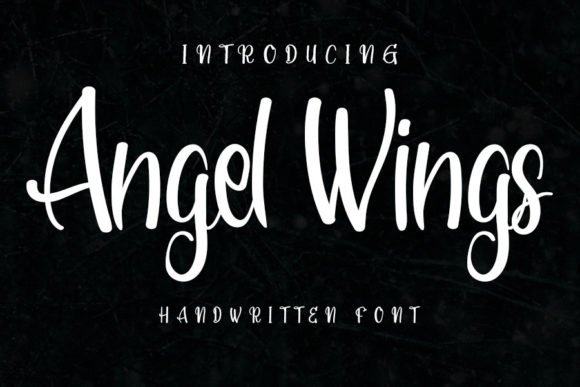
Have you ever been stuck in a design rut, searching for the perfect font to bring your project to life? That’s exactly where I found myself a few years ago, staring blankly at a blank canvas, desperate for inspiration. And then, it hit me – the perfect font to add a touch of whimsy and personality to my design.
Enter the Angel Wings Font, a chic and flowing script font that is as sweet as it is full of life. This lovely font is designed to brighten up your designs and add a sense of elegance and sophistication. Whether you’re creating a wedding invitation, a children’s book, or a social media post, the Angel Wings Font is the perfect choice to make your design stand out.
For designers, the Angel Wings Font is a valuable asset, offering a unique and versatile style that can be used in a wide range of projects. Its versatility and charm make it a must-have font for any creative professional looking to add a touch of magic to their designs.
Angel Wings Font Key Features
- Unique Characteristics: This font features intricate, hand-drawn designs and subtle texture elements, giving it a distinctive, whimsical feel that’s perfect for creative projects.
Angel Wings Font Review
Overall, I’d say the Angel Wings font is a beautiful, unique addition to any design project. ✨ The whimsical, ethereal feel it evokes is perfect for anything from wedding invitations to fantasy novels.
- ✨ The font’s delicate, airy quality is perfect for adding a touch of magic to your designs.
- ✨ The variety of styles and weights within the font make it highly versatile, suitable for a wide range of applications.
- ✨ The font’s intricate details are well-rendered, even at smaller sizes, making it a great choice for fine typography.
- ⚠️ The font may not be the best choice for body text, as its intricate details can make it difficult to read at larger sizes.
- ⚠️ Some users may find the font’s whimsical feel to be too ornate or distracting in certain contexts.
Overall, I’d highly recommend the Angel Wings font for designers looking to add a touch of fantasy or whimsy to their projects. While it may not be suitable for all applications, its unique charm and versatility make it a valuable addition to any design toolkit.
Tip: Use the Angel Wings Font for titles, headings, and other prominent text elements to add a touch of elegance and whimsy to your designs.
Tip: Use the Angel Wings Font for creative typography projects, such as logo design or hand-lettering.
Tip: Use the Angel Wings Font for titles, headings, and other prominent text elements to add a touch of elegance and whimsy to your presentations and documents.
The Angel Wings Font is ideal for:
- Baby shower invitations and decorations
- Creative typography projects
Remember to experiment with different font sizes, styles, and combinations to get the most out of the Angel Wings Font.